4 Strategic Customized Fonts and Typefaces
When approaching the ideation process for brand identity and logo design, one of the most crucial considerations is the typeface selection. What will be of the best use — serif, sans serif, decorative or script? A typeface infuses your design with emotion and meaning, defining your brand’s identity in every medium, from packaging and editorial design to website design and business correspondence.
Strategic Customized Typeface Examples:
Bobber
by Lucas Almeida and Dmitry Goloub
Lucas Almeida and Dmitry Goloub created this beautiful serif for Bobber Motorcycles. Their design strategy focused on applying Bobber Motorcycles’s identity with the typeface design.
Lucas and Dmittry always liked to draw some typefaces and this is their first slab serif. It’s grid based and it’s called Bobber because it’s vintage style.The inspiration to Bobber was, of course, the bobber motorcycles but not just that. We were looking for an unique type. Every single Bobber character is modular and grid based.
Neptune
Sans serif typefaces and fonts normally lack ornamentation and can both improve legibility and add a minimalistic look to your work. The animation below shows an example of a sans serif font that David Massara created called Neptune. Massara added a twist to the standard sans serif design to create a compelling font.
“Neptune is a typeface inspired by the aesthetics of the violence of Ancient Rome with contemporary influences. It features two variants: a standard set which is a clean and clear sans serif, and an alternative who merged the two influences to create a sophisticated contemporary look. Perfect for usage in Posters / Logotypes and Headlines”
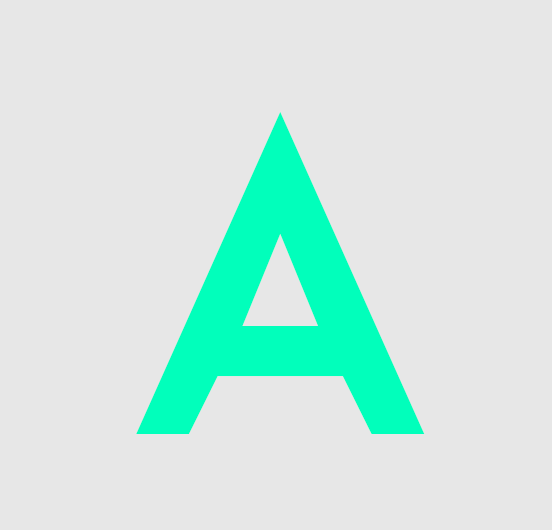
Auberge
by Ale Paul
Ale Paul designed the graceful script below — connecting characters with swashes, tails and flourishes — called Auberge. We love his approach to designing this elegant typeface and his motives for defining the characters’ movements.
Late 17th century French and Spanish professional calligraphy guides were great aides in understanding the ornamental scope of what the scribes were doing back then. The French books, with their showings of the Ronde, Bâtarde and Coulée alphabets, were the ones I referenced the most. So I decided to name the font Auberge, a French word for hotel or inn, because I really felt like a guest in different French locales (and times) when I going through all that stuff. Because it is multi-sourced, Auberge Script does not strictly fit in a distinct quill pen category. Instead, it shows strong hints of both Bâtarde and Coulée alphabets. And like most of my fonts, it is an exercise in going overboard with alternates, swashes, and ornamental devices. Having worked with it for a while, I find it most suitable for display calligraphic setting in general, but it works especially well for things like wine labels and event invitations. It also shines in the original quill pen application purpose, which of course was stationery.
Frontage
by Juri Zaech
Frontage is a charming layered type system with endless design possibilities using different combinations of fonts and colors. Achieve a realistic 3D effect by adding the shadow font or just use the capital letters of the regular and bold cut for stark artwork. The typeface’s design is based on a simple grid which creates the friendly, handcrafted look of facade signs. It is generously spaced for maximum impact of your message. As a display typeface Frontage loves color and is suitable for headlines and logotypes. Details include 224 characters in six styles and manually edited kerning.
Customizing Fonts
After deciding which typeface aligns best with a company’s message and identity, the next step is to personalize the mark so it stands out from the competition. Simply selecting a font from a library or from a free Internet source isn’t the best option for designing a unique, widely-renowned symbol.
In the video-driven script mark design course, TypeEd instructors Michael Stinson and Leah Faust dissect the mark design process — from the anatomy to the emotion and to script readability. They provide students with a strong grasp of overall mark concepts, presenting step-by-step instruction for customizing existing typefaces using Bezier curves, the pen tool and the smooth tool in Illustrator.
The examples below show script mark customization that students can create after completing Scriptology:
Scriptology course? Check out the excerpt and introductory video below.
Important Script Mark Design Considerations
When creating a hand-lettered or hand-inspired script mark for a brand, it’s important to consider the tone of the brand name, the concept, and all the physical places it will be seen. The process of creating the personality of a mark is also crucial. Repeating shapes between letterforms establishes a visual rhythm. When paired with consistent stress, this helps bring the mark together, strengthening the relationship between forms and improving legibility. A hand-lettered script is special because it’s intimate, curvaceous, expressive, and human.